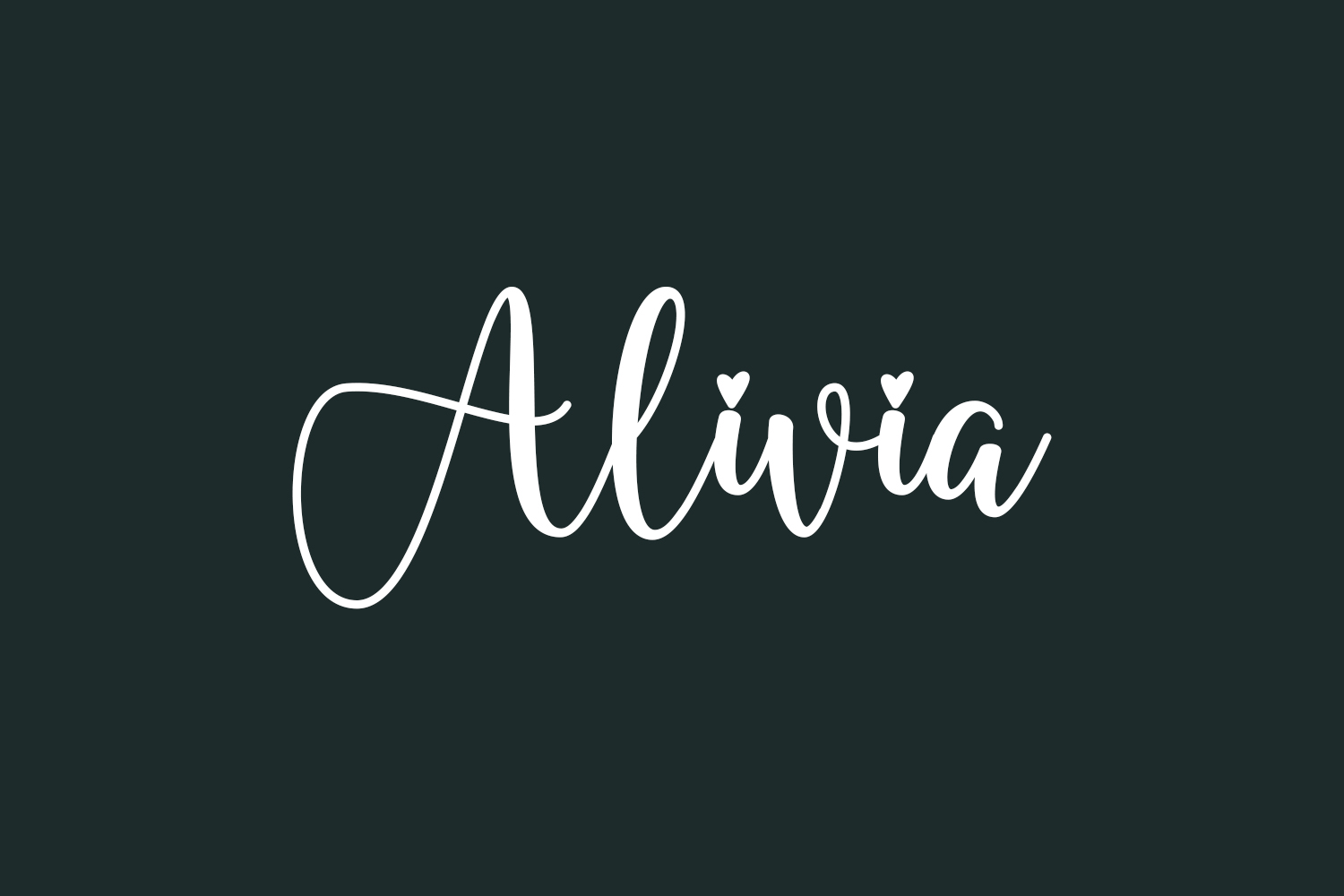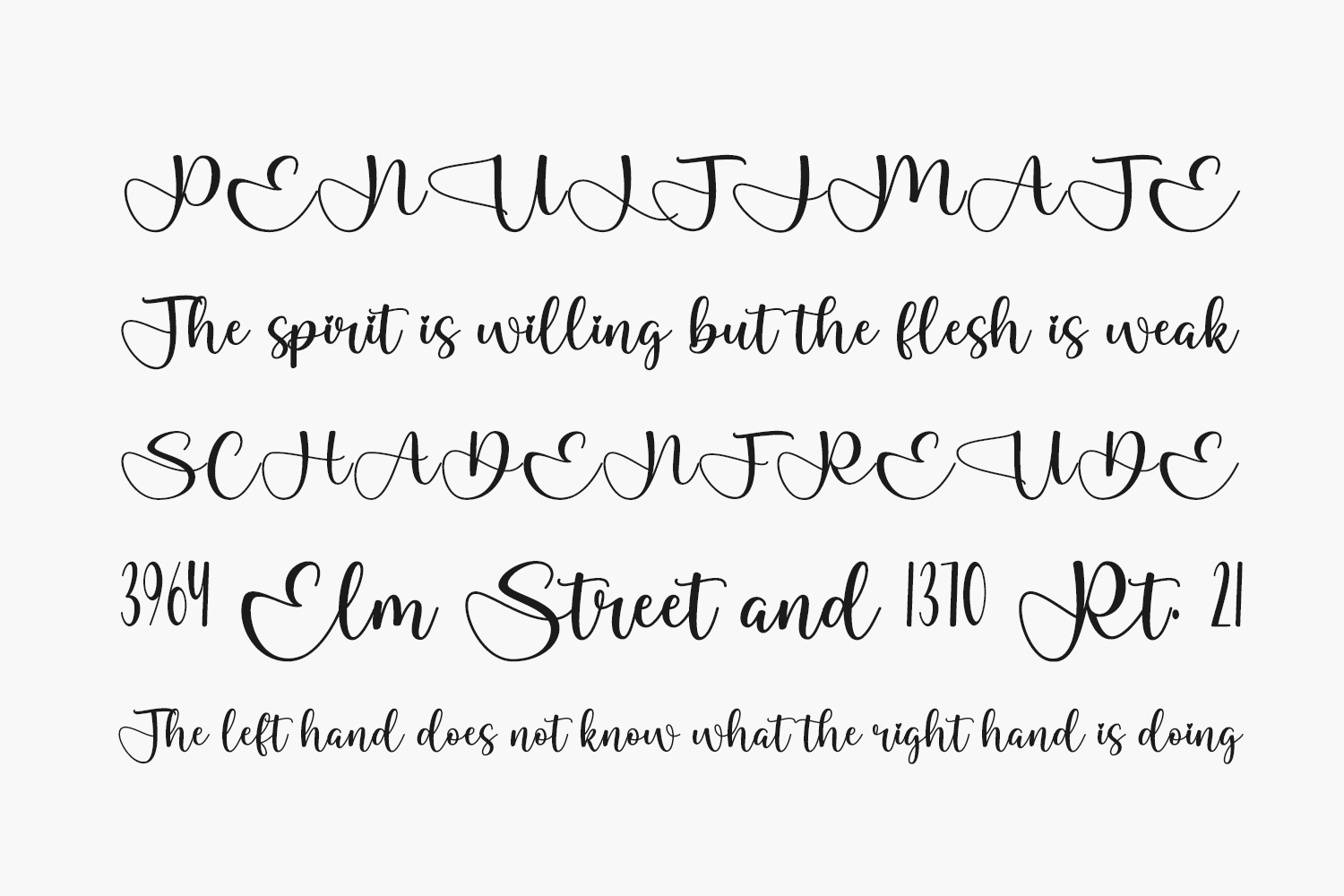
Alivia Free Font is a thin lettered and delicate script font. Add it confidently to your favorite creations and let yourself be amazed by the outcome generated. Alivia Free Font is free for personal use only. Please purchase the full version for commercial use.